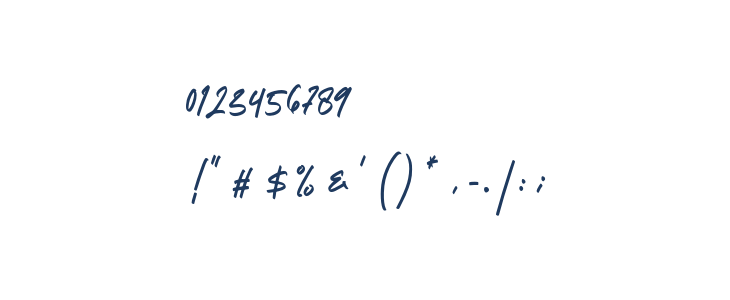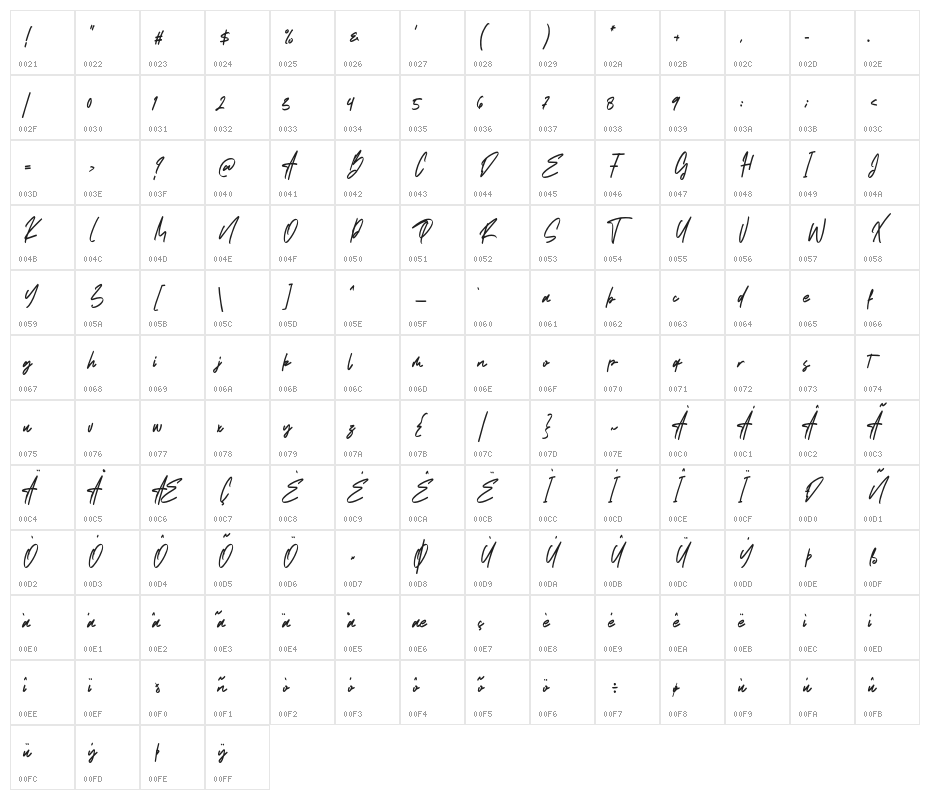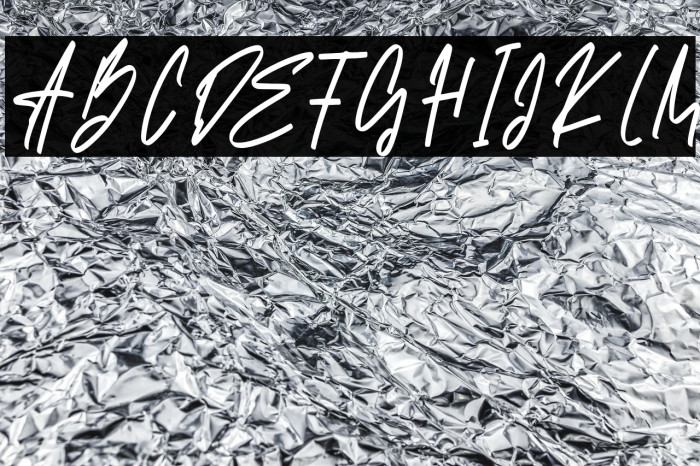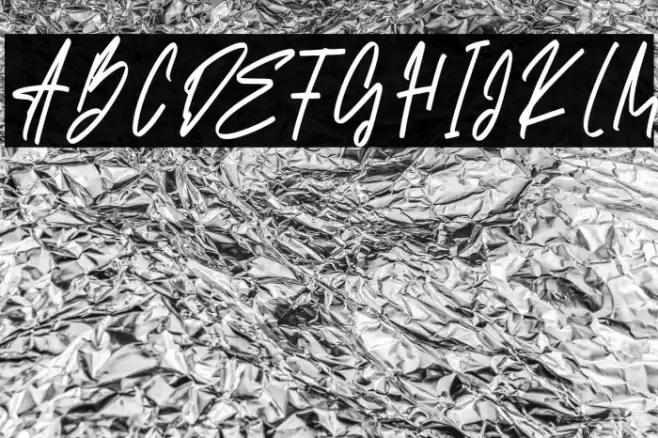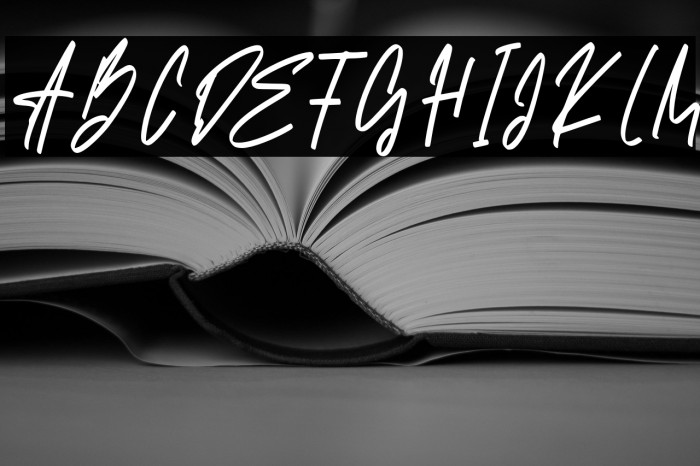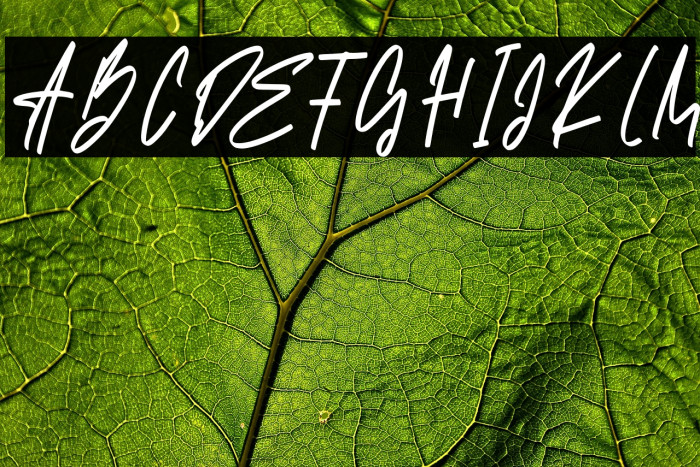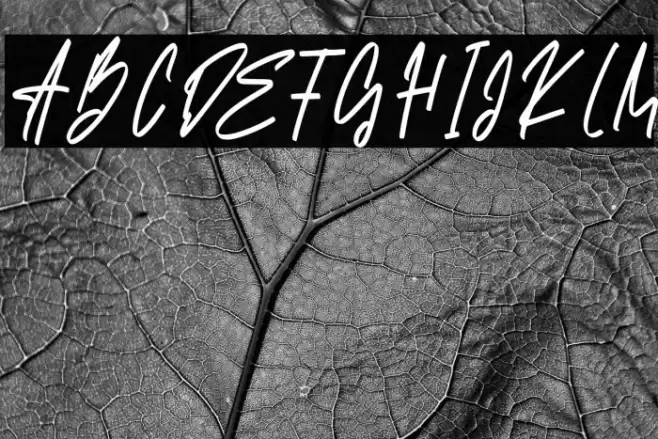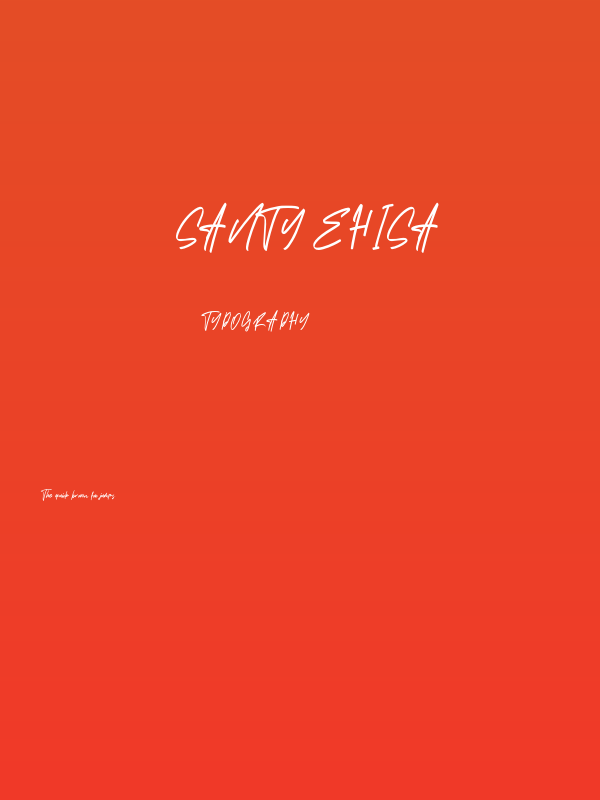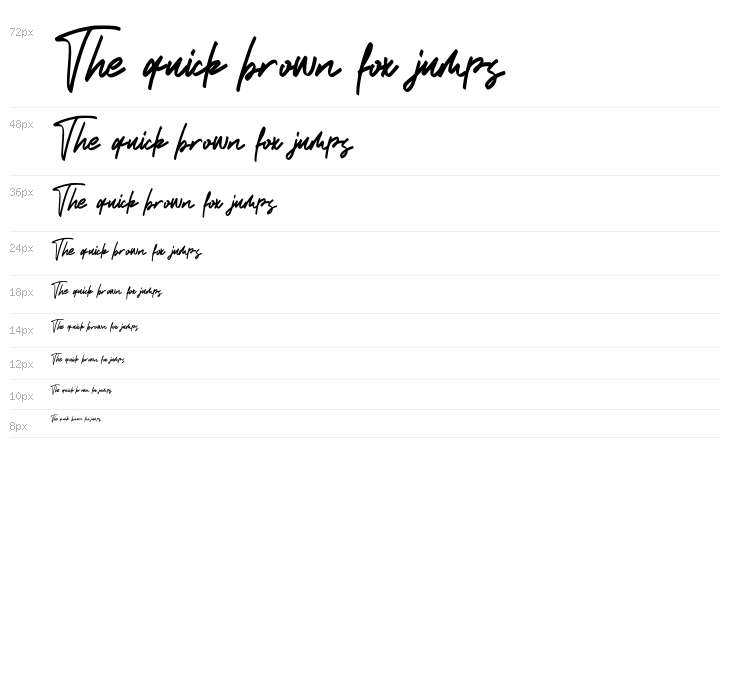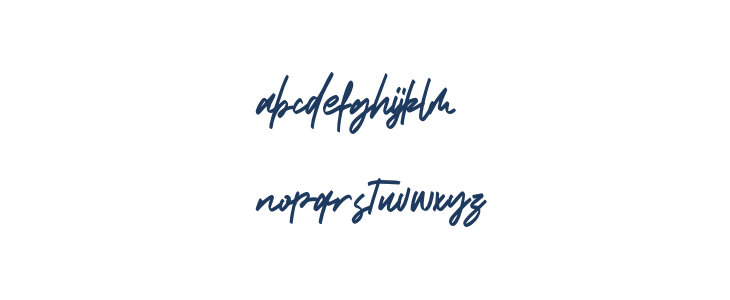
Santy Ehisa Font
Santy Ehisa Description
This font exudes a lively and dynamic energy with its handwritten style, characterized by fluid, sweeping strokes that mimic natural handwriting. The letters are slightly slanted, adding a sense of motion and informality. The uppercase letters are bold and prominent, while the lowercase letters maintain a consistent flow, enhancing readability. Numbers and special characters are crafted with the same attention to detail, ensuring a cohesive look across all elements. The overall design is both playful and elegant, making it suitable for a variety of creative applications.